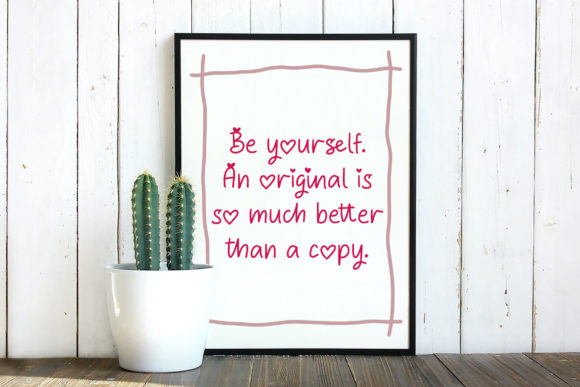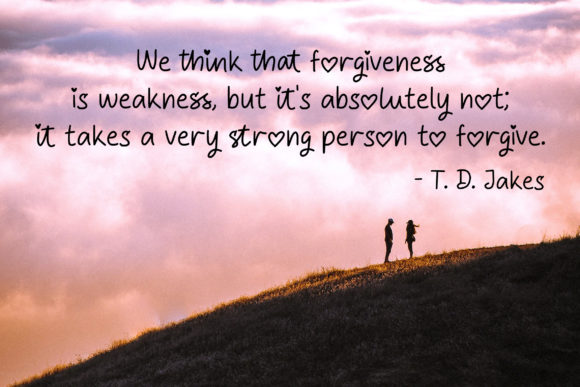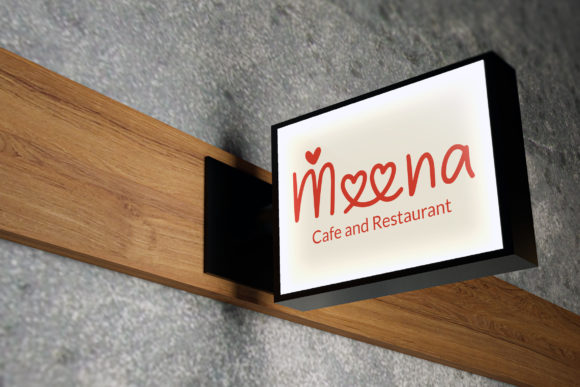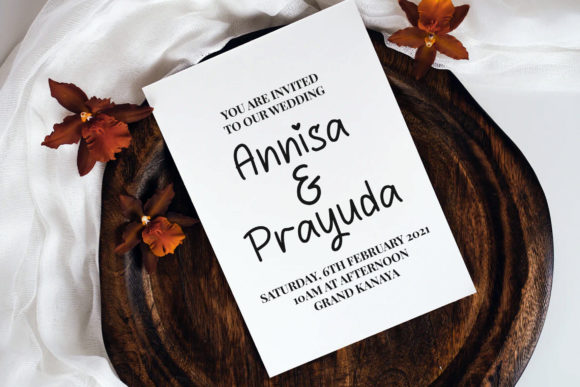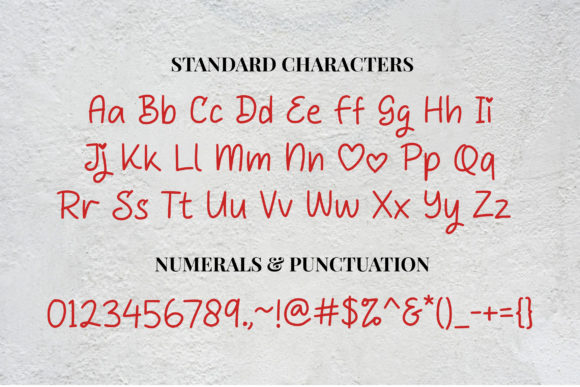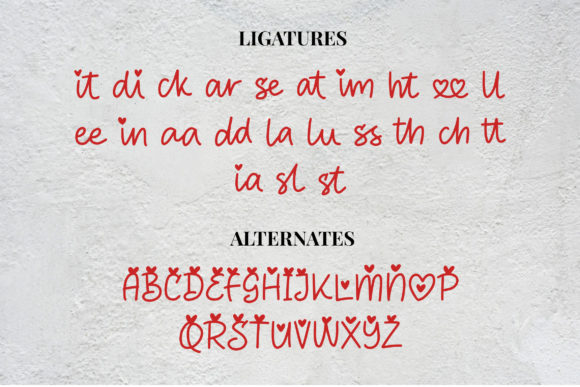
Introduction to Loving Story Font
Loving Story is a cute, romantic and playful display font.
Embodying authenticity and fun, this font is perfect for love themed designs, especially when combined with bright colors Loving Story is PUA encoded, which means that you can access all glyphs and swashes with ease.